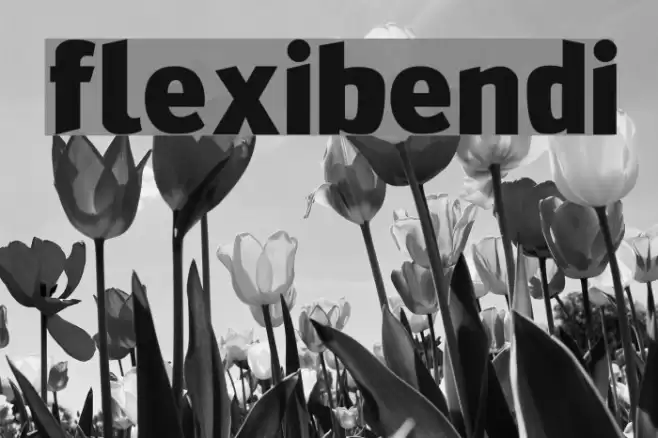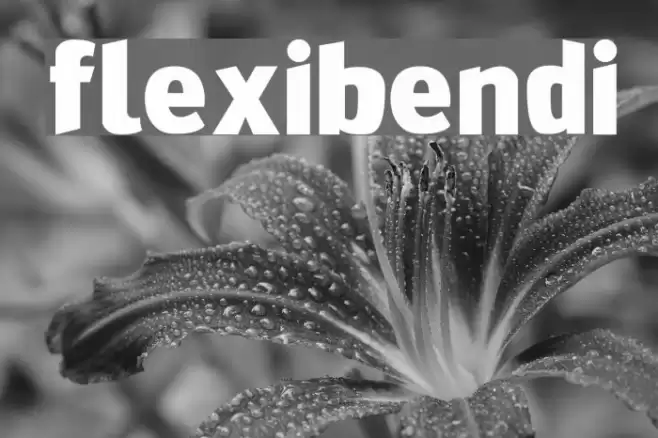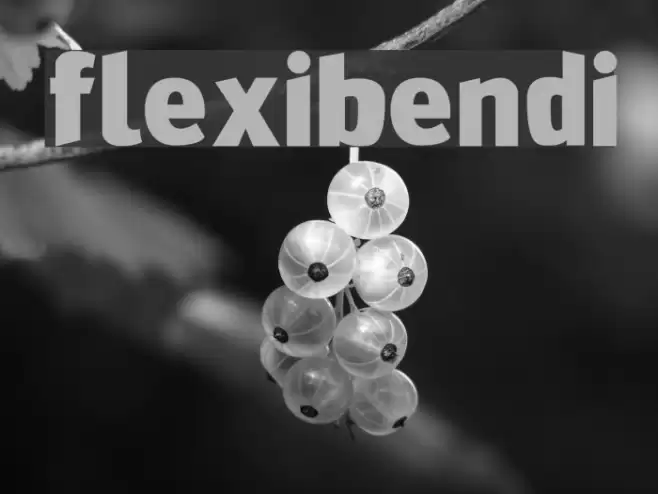
FlexiBendi
This font features a bold and playful design with a modern twist. The characters are rounded and slightly condensed, giving them a unique and approachable appearance. The uppercase and lowercase letters maintain a consistent style, with smooth curves and a slight slant that adds dynamism. The numerals are clear and distinct, matching the overall aesthetic of the alphabet. Special characters are well-integrated, maintaining the font's cohesive look. This typeface is versatile, suitable for a variety of creative projects that require a touch of personality and flair.
A bold, playful font with rounded, slightly condensed characters and a modern style.
- Proposed Projects: Ideal for branding, posters, headlines, and any project needing a lively and modern touch.
- Width: Condensed
- Use Case: Headlines, Logos, Posters